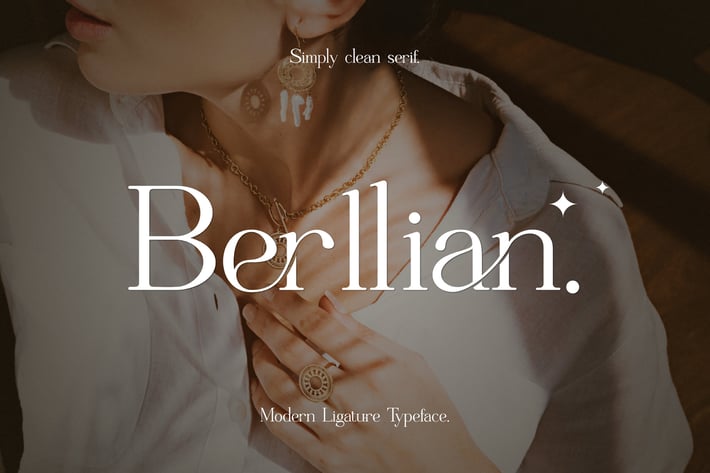
Berllian Serif Font
Berllian Serif Font inspired by the famous minimalist logo perfect for the purposes of designing templates, brochures, videos, advertising branding, logos and more.
+ Ligatures
+ International Accent
Fonts include multilingual support